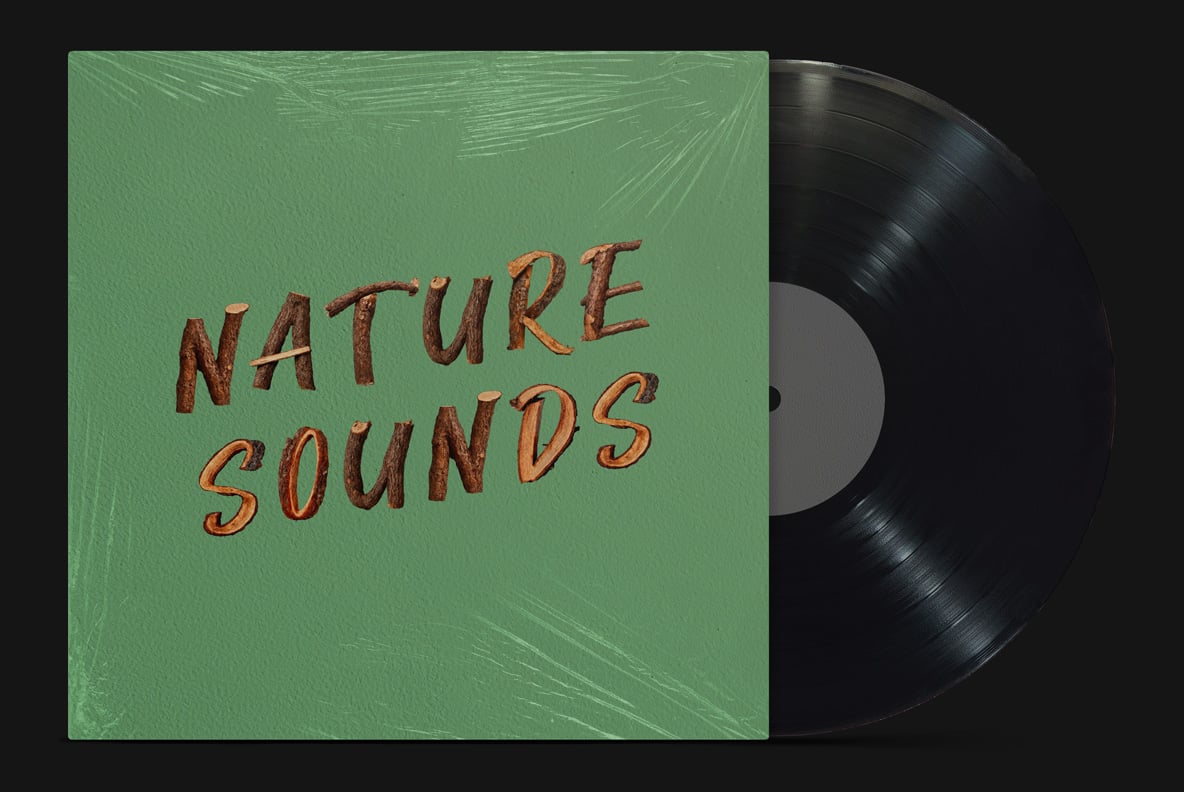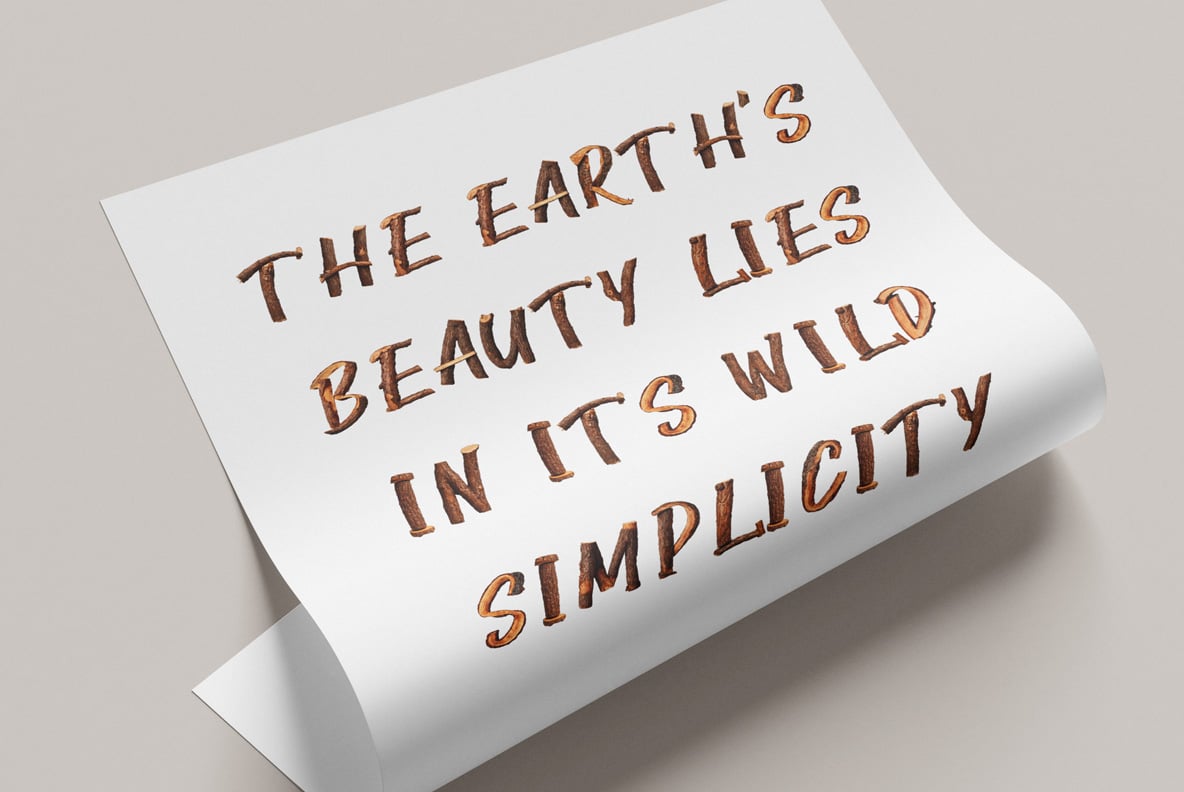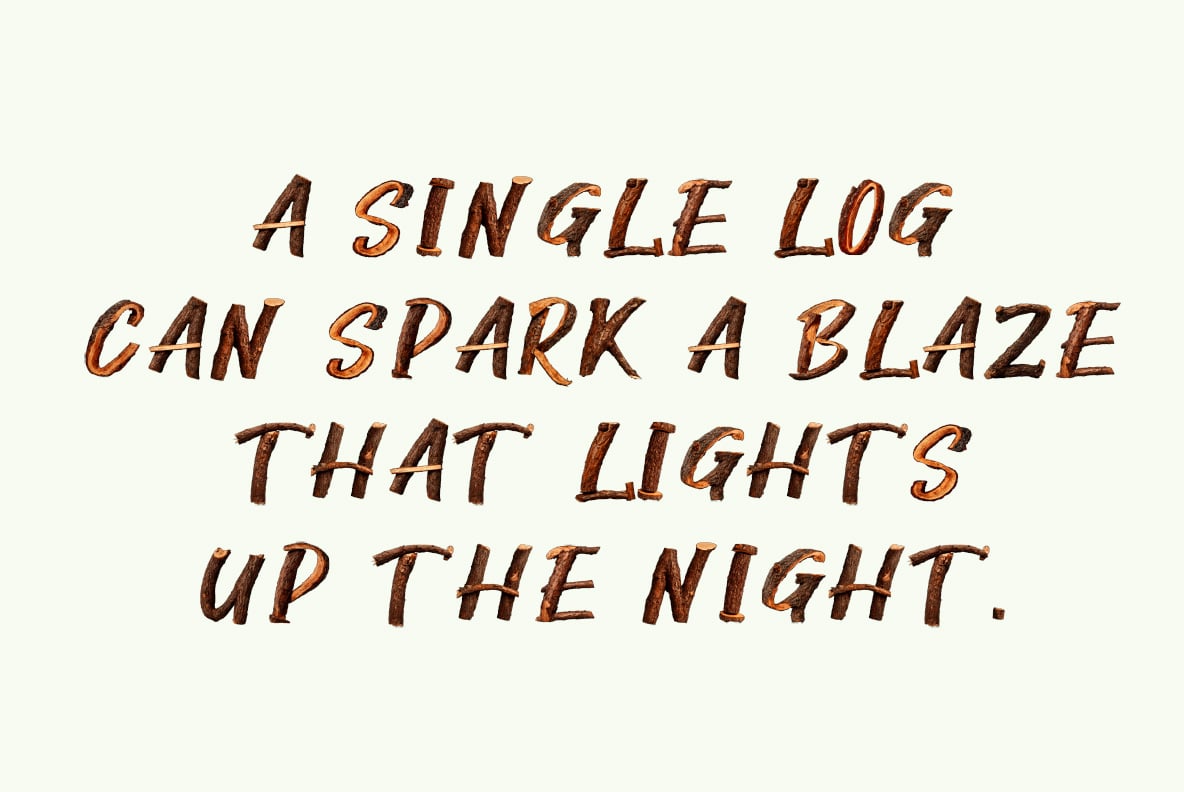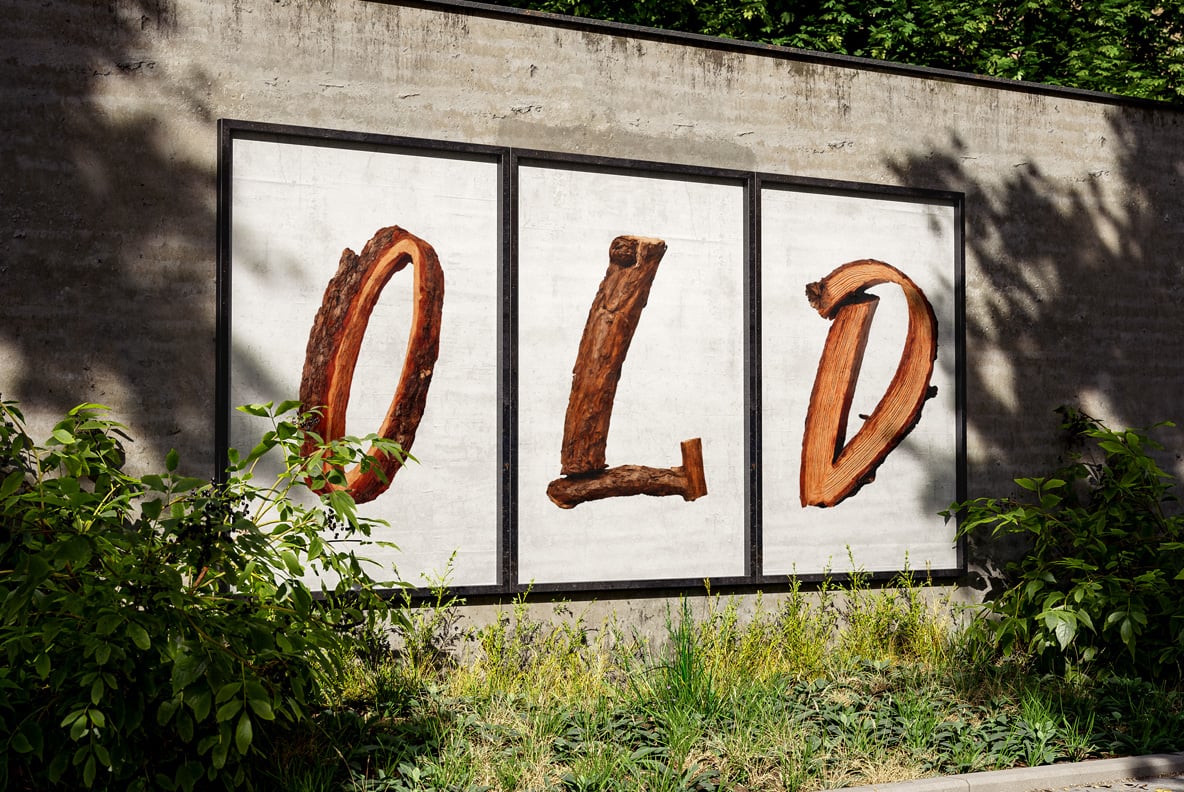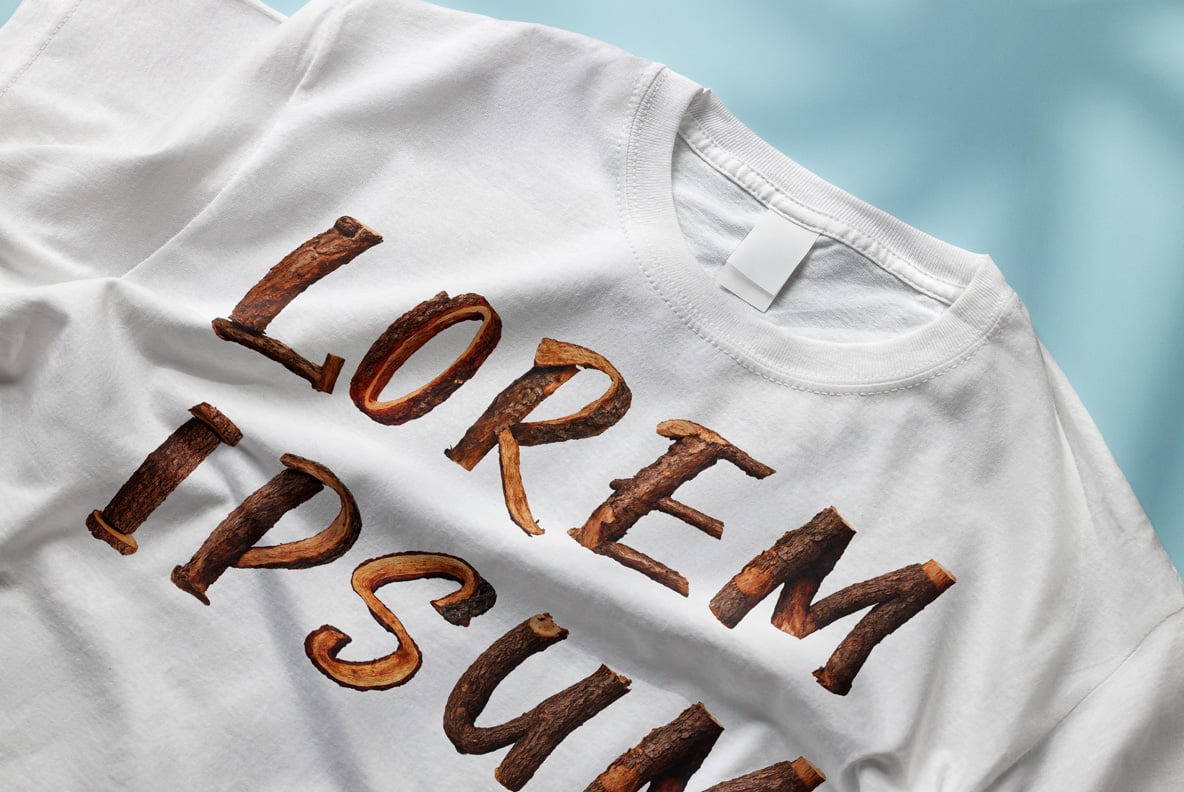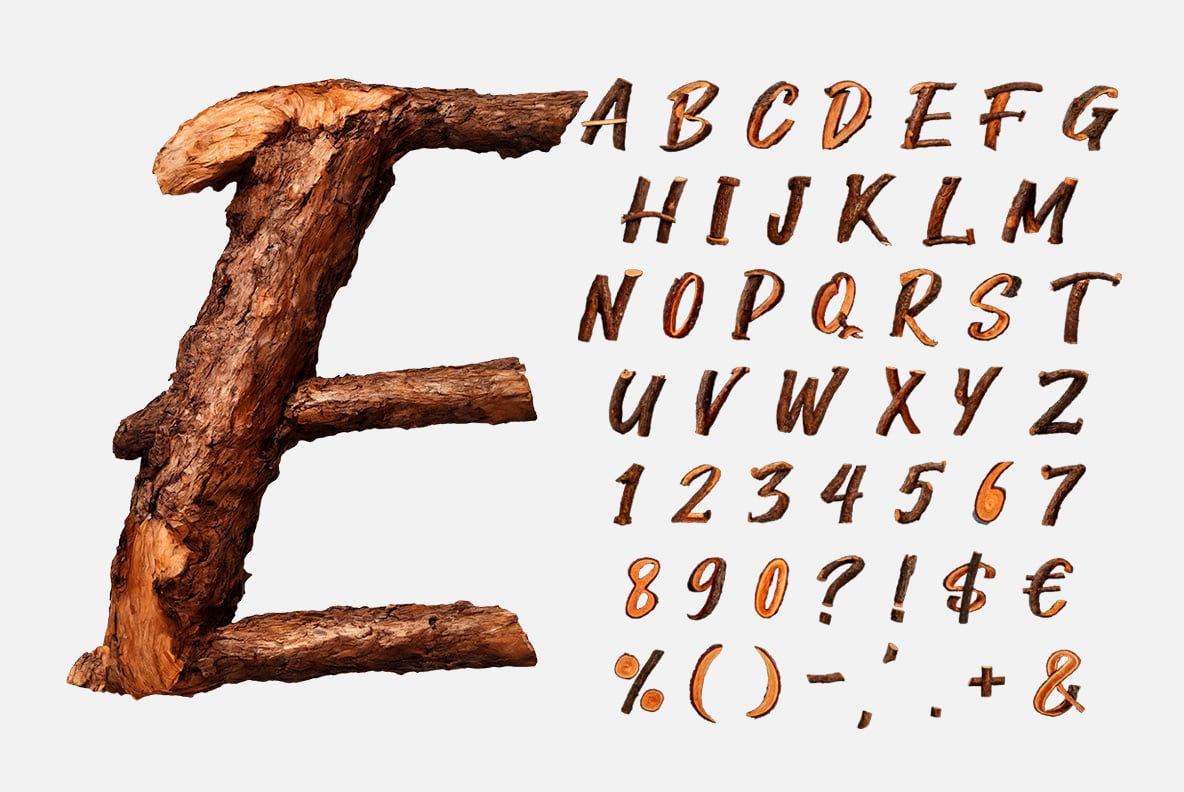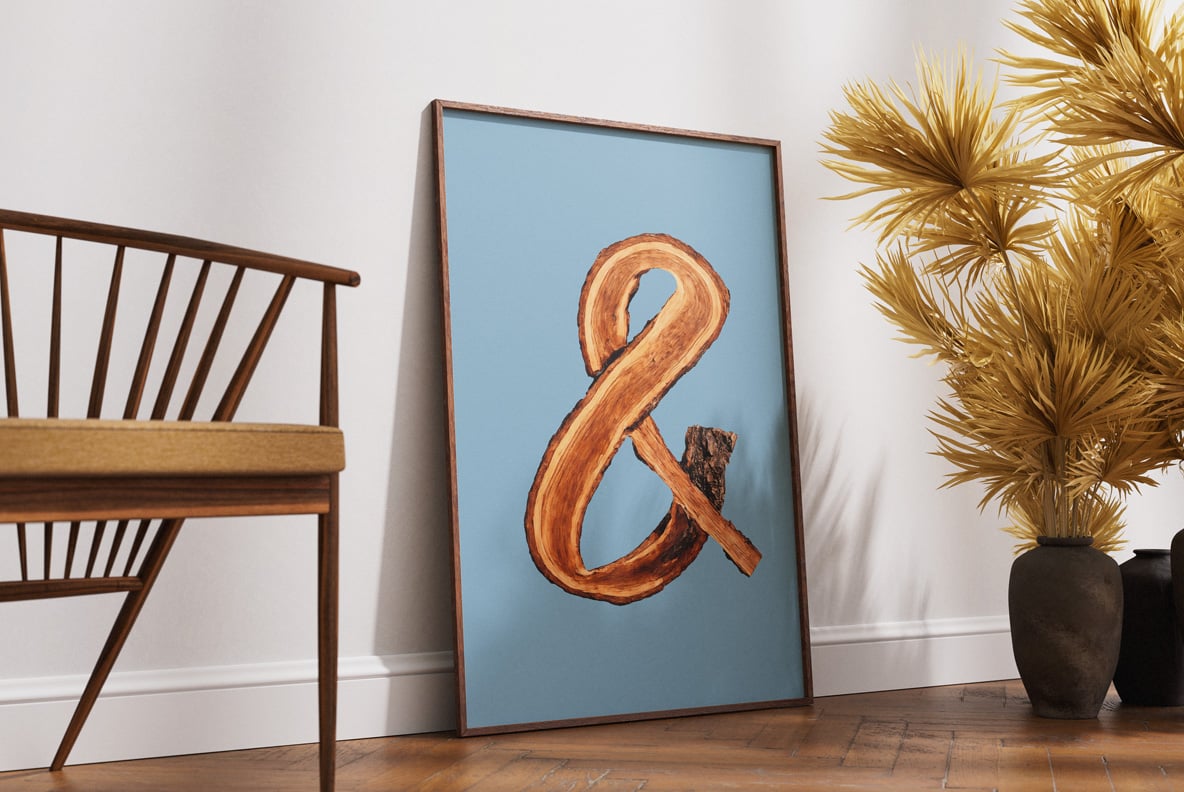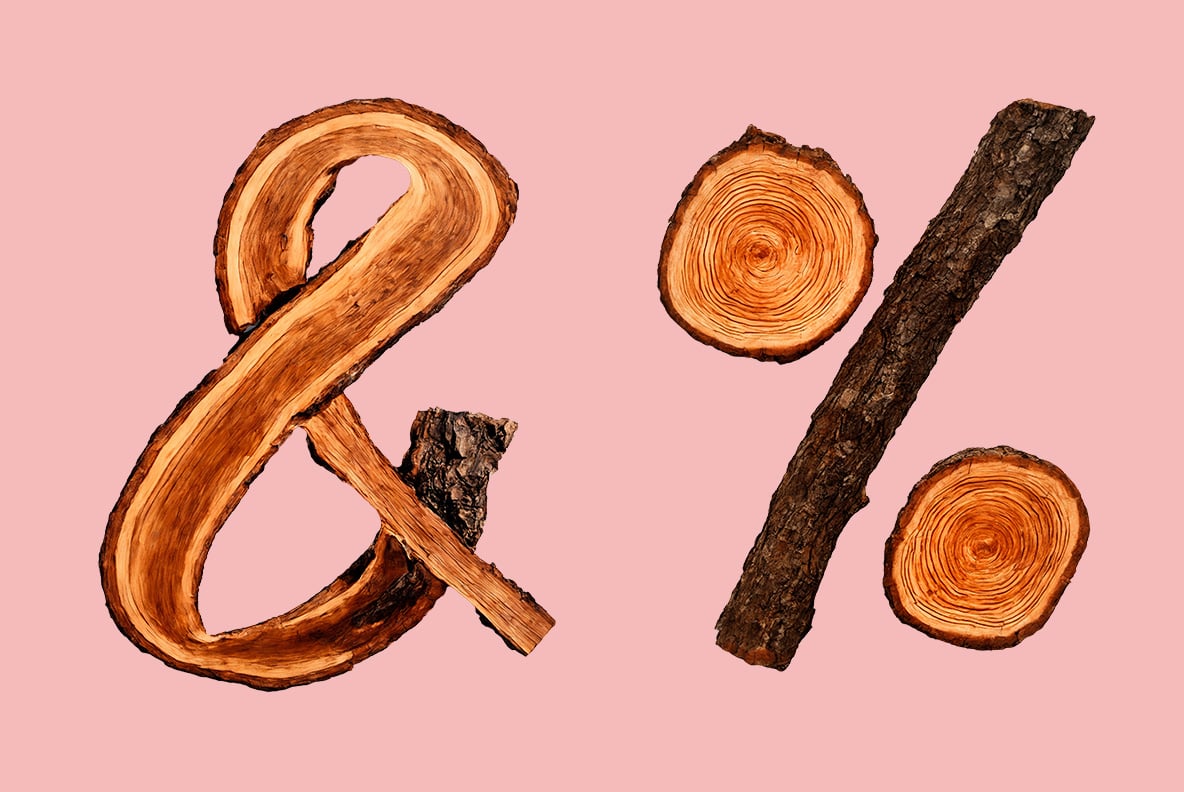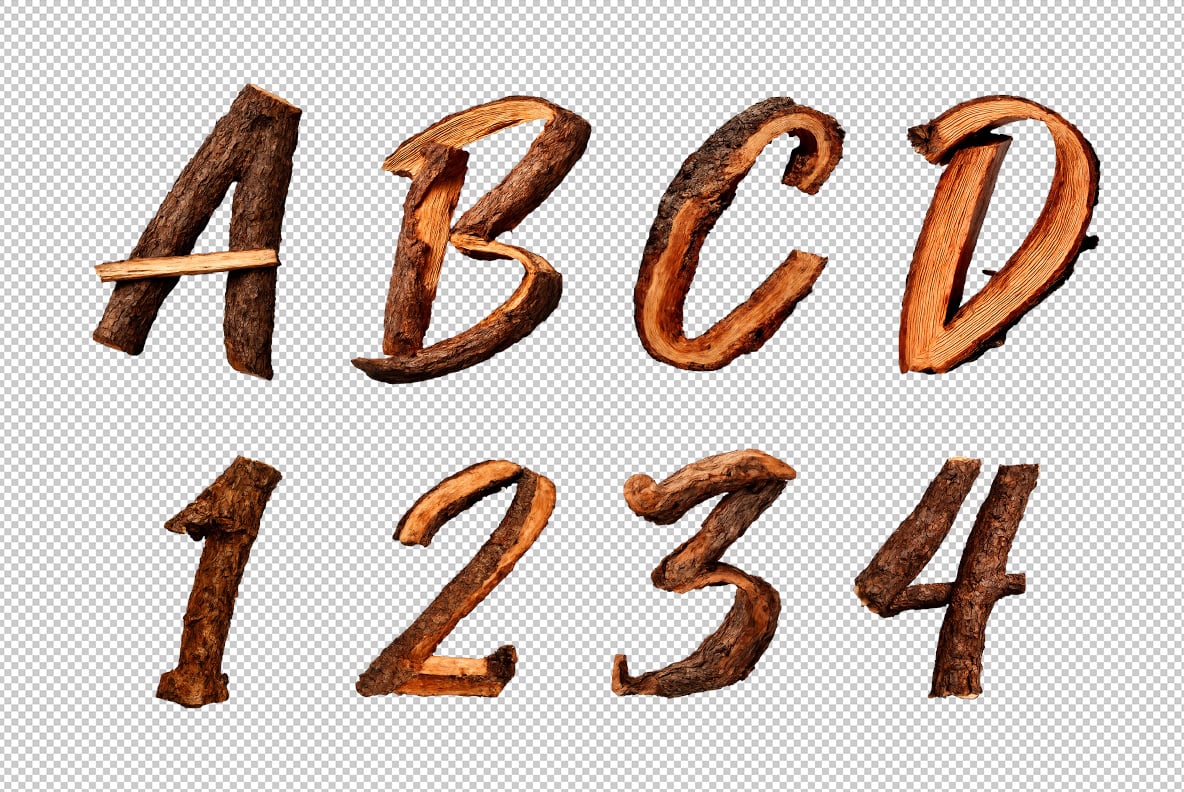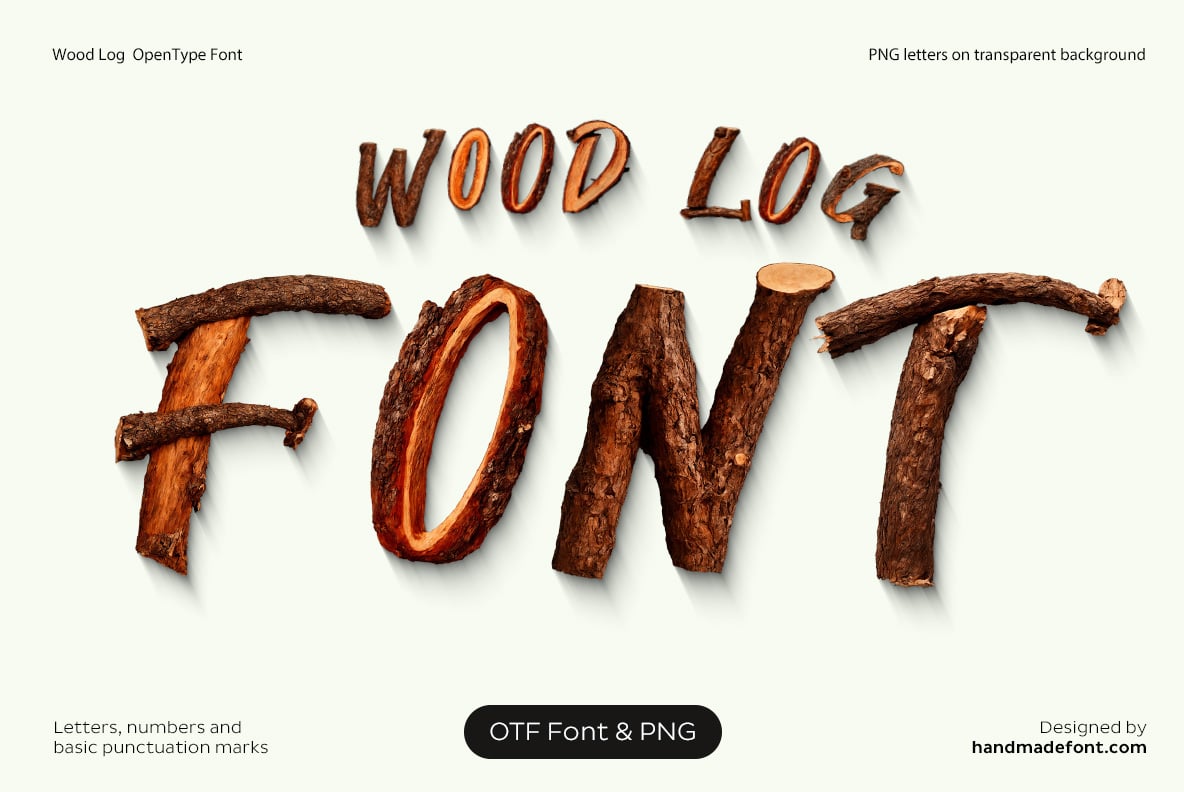
Wood Log Font
Nature takes center stage with the "Wood Log Font," a beautifully crafted wood-inspired font that embodies the rustic charm of the outdoors. Each letter is meticulously designed to resemble logs and branches, creating a harmonious blend of organic elements and creative typography. Perfect for wood-themed designs, this unique wood alphabet evokes the warmth of a cozy forest cabin and the raw elegance of natural materials. Whether for branding, invitations, or artistic projects, this wood typography brings an earthy touch to your lettering. The intricate details in every log and branch make "Wood Log Font" a captivating tribute to nature’s artistry.
A high definition OpenType Font. Contains uppercase characters, numerals and basic punctuation. (Draw height roughly 800 pixels). All letters and glyphs that comprises this font you can see on the preview.
Others : ! ? - . ' $ € % & #